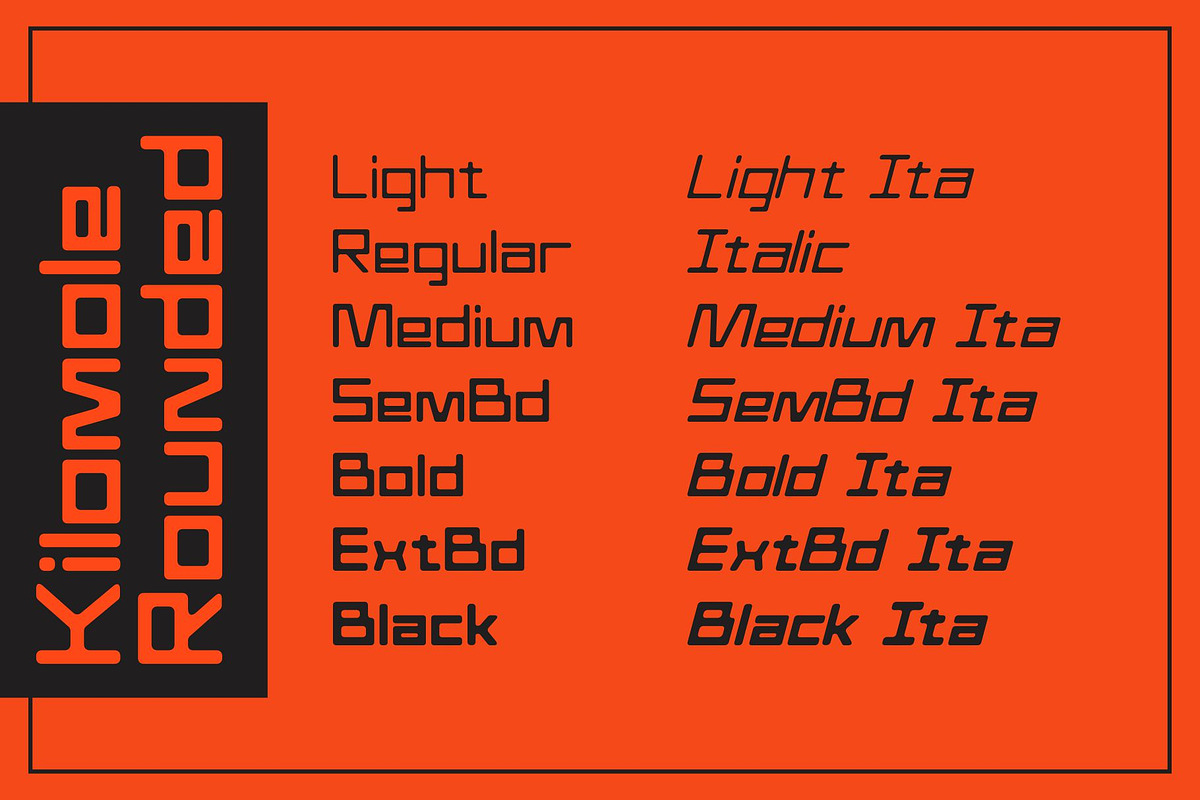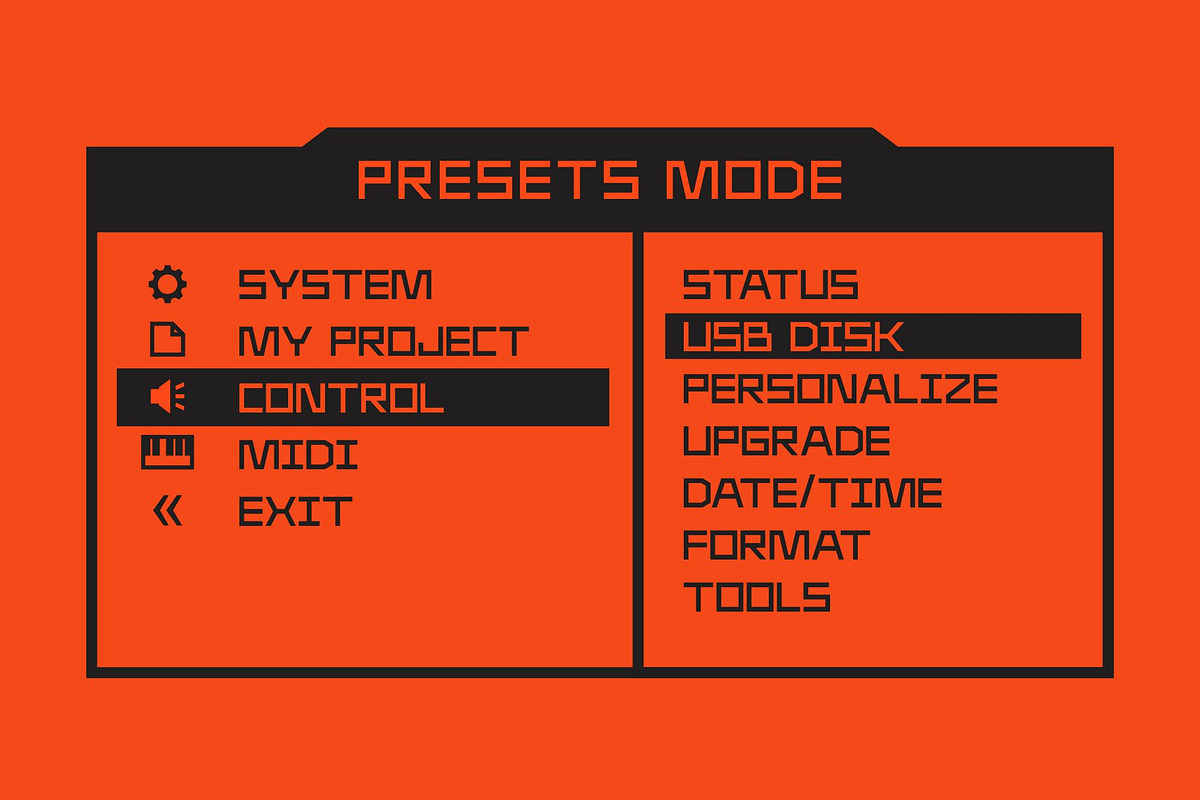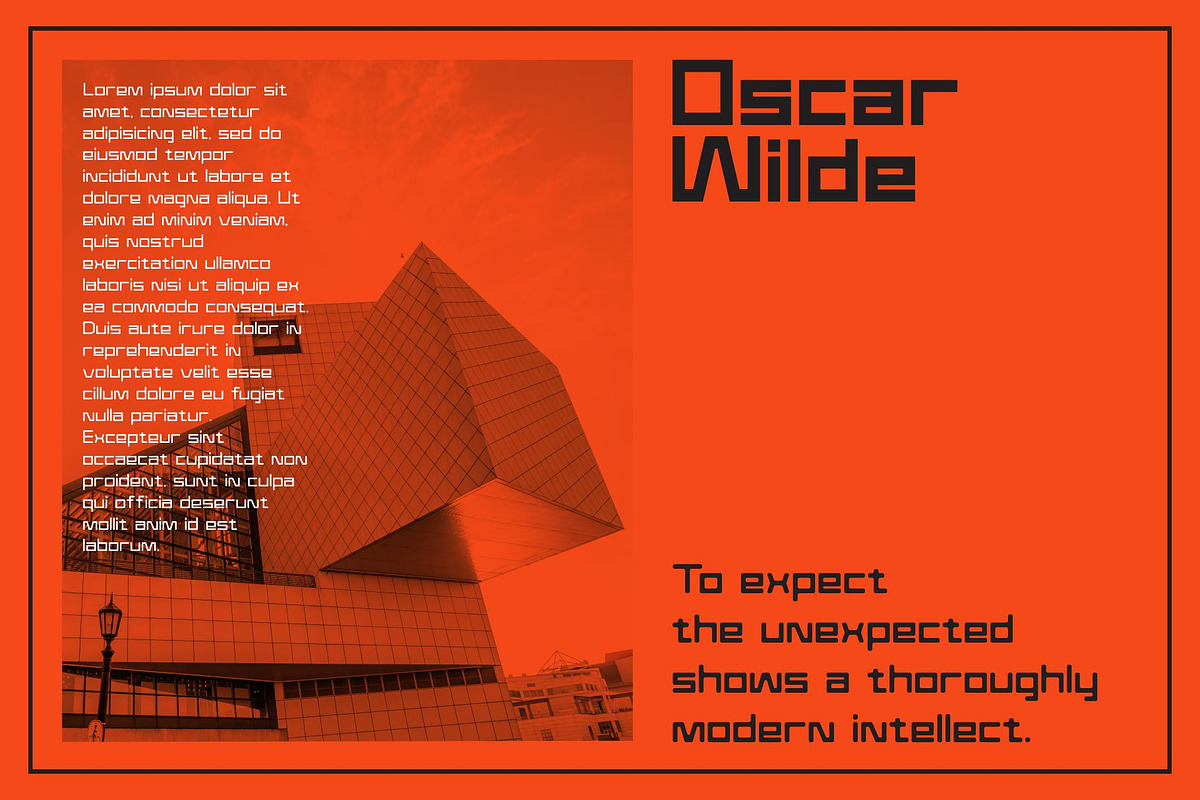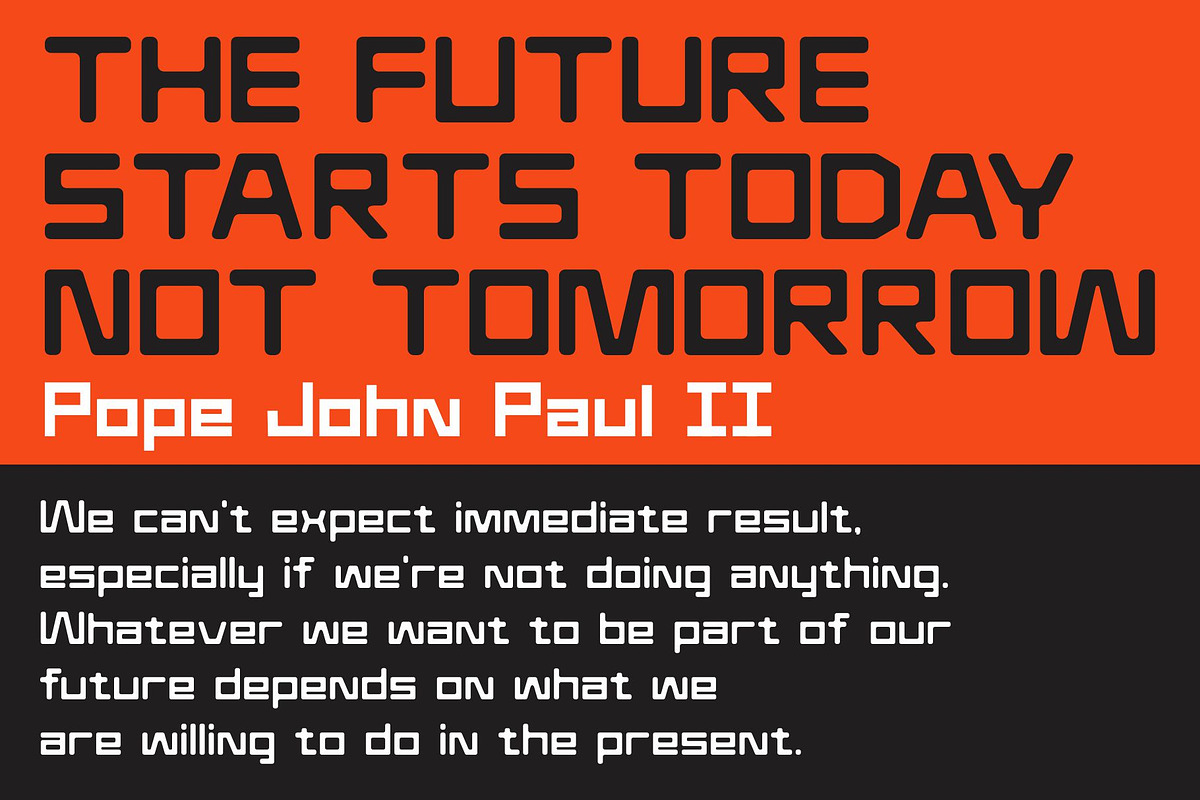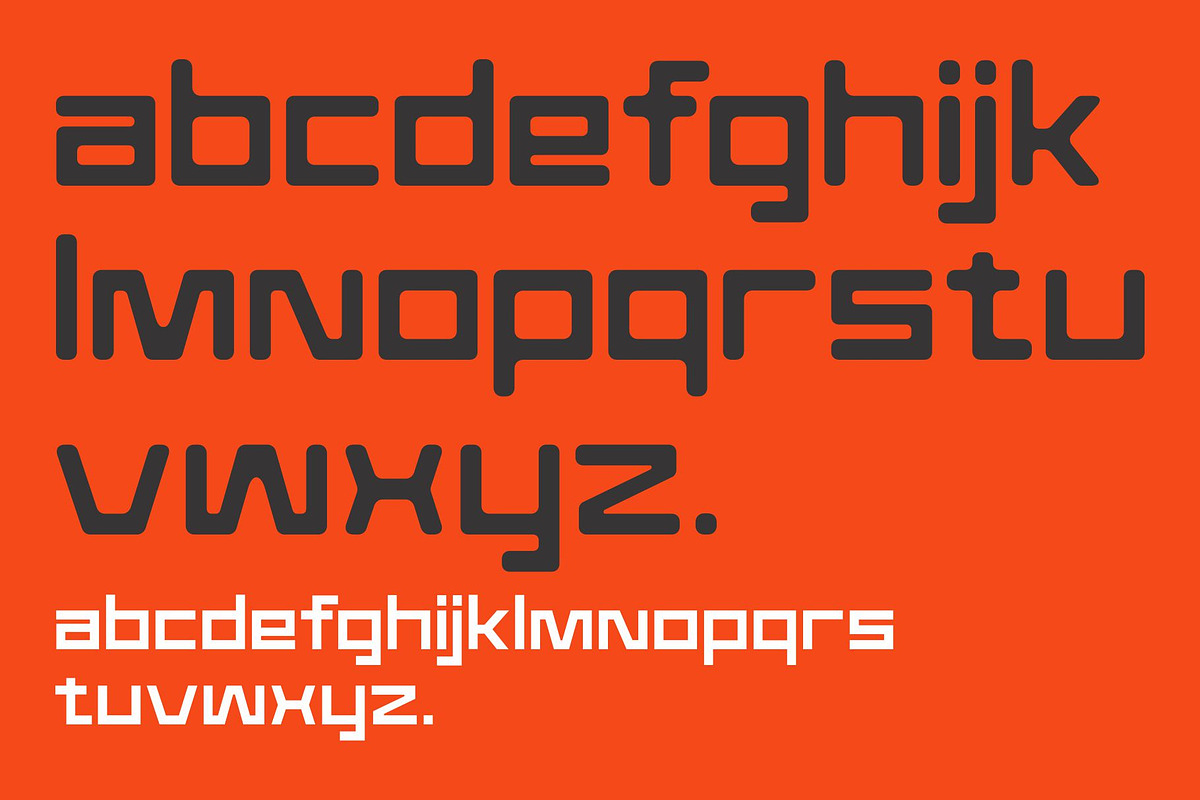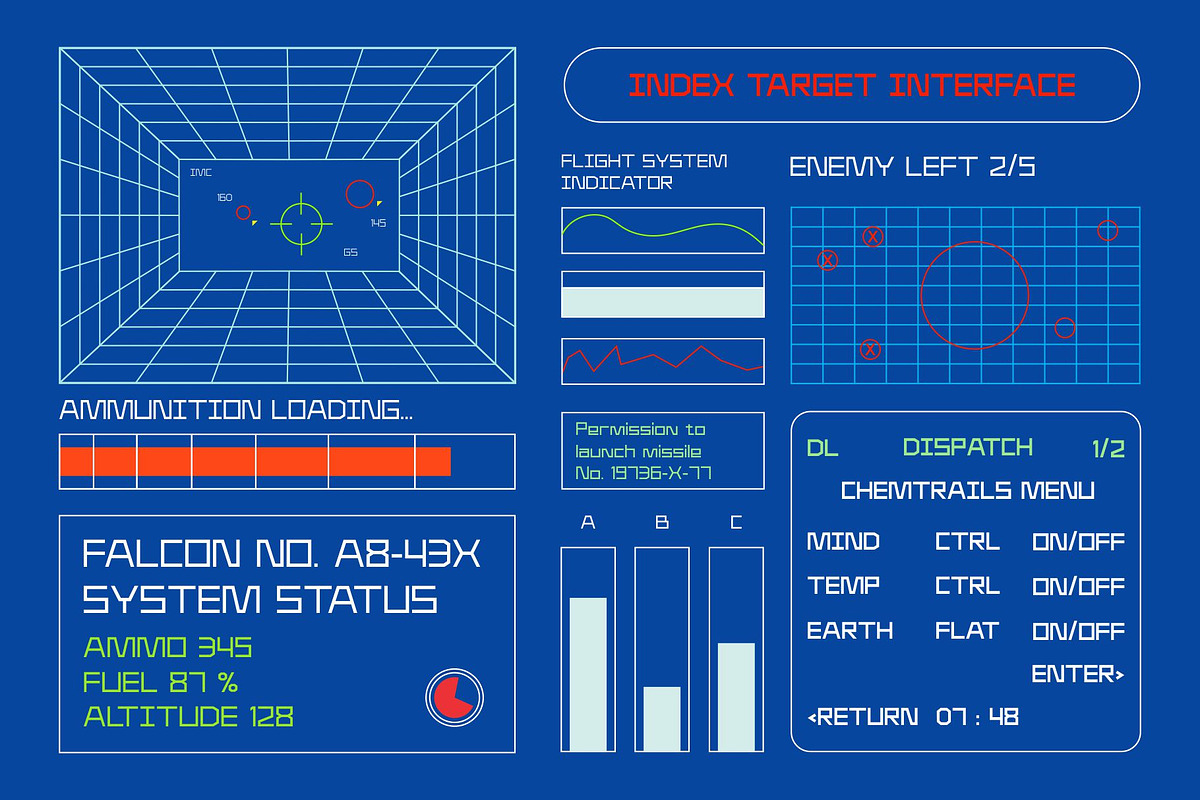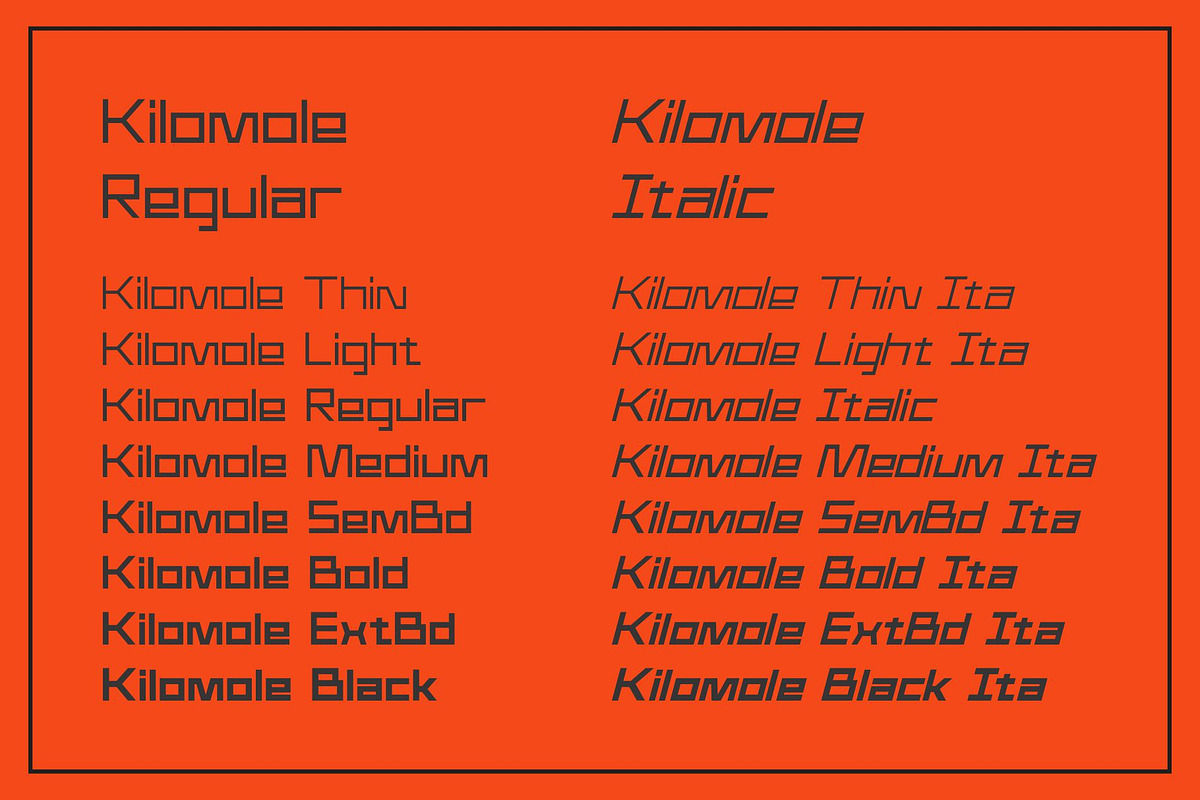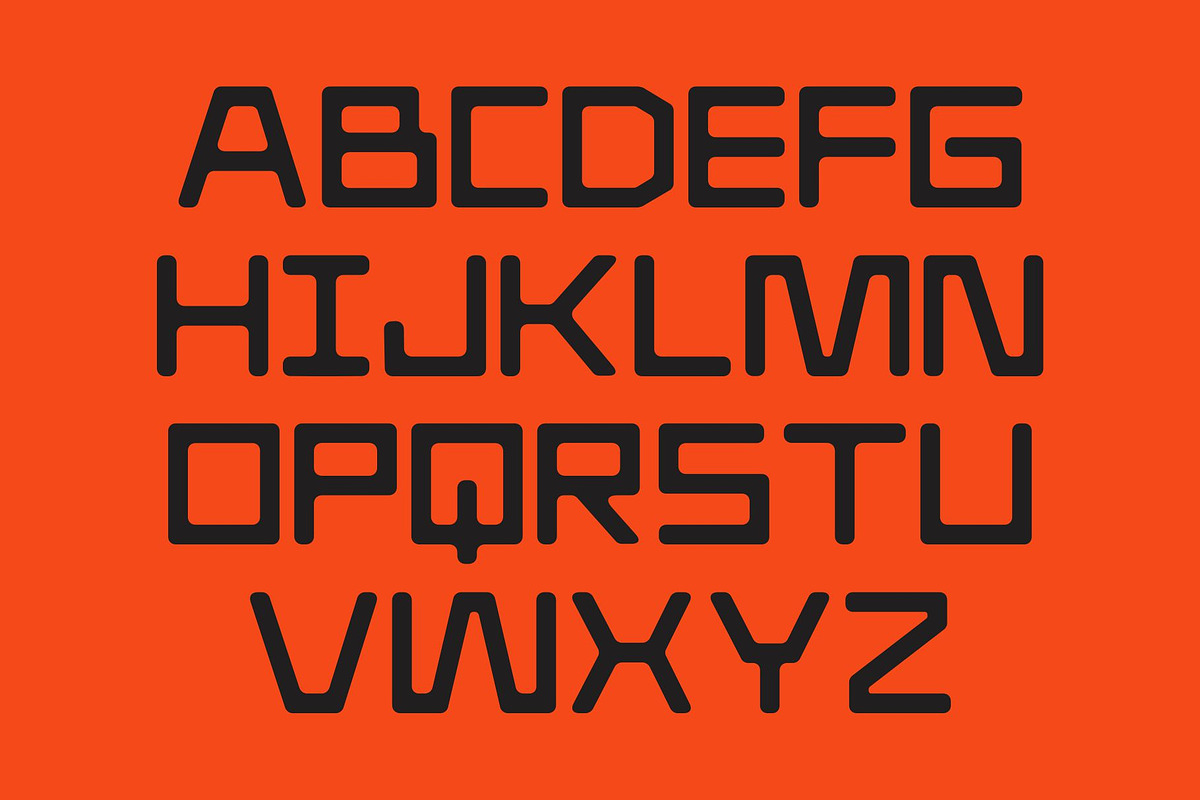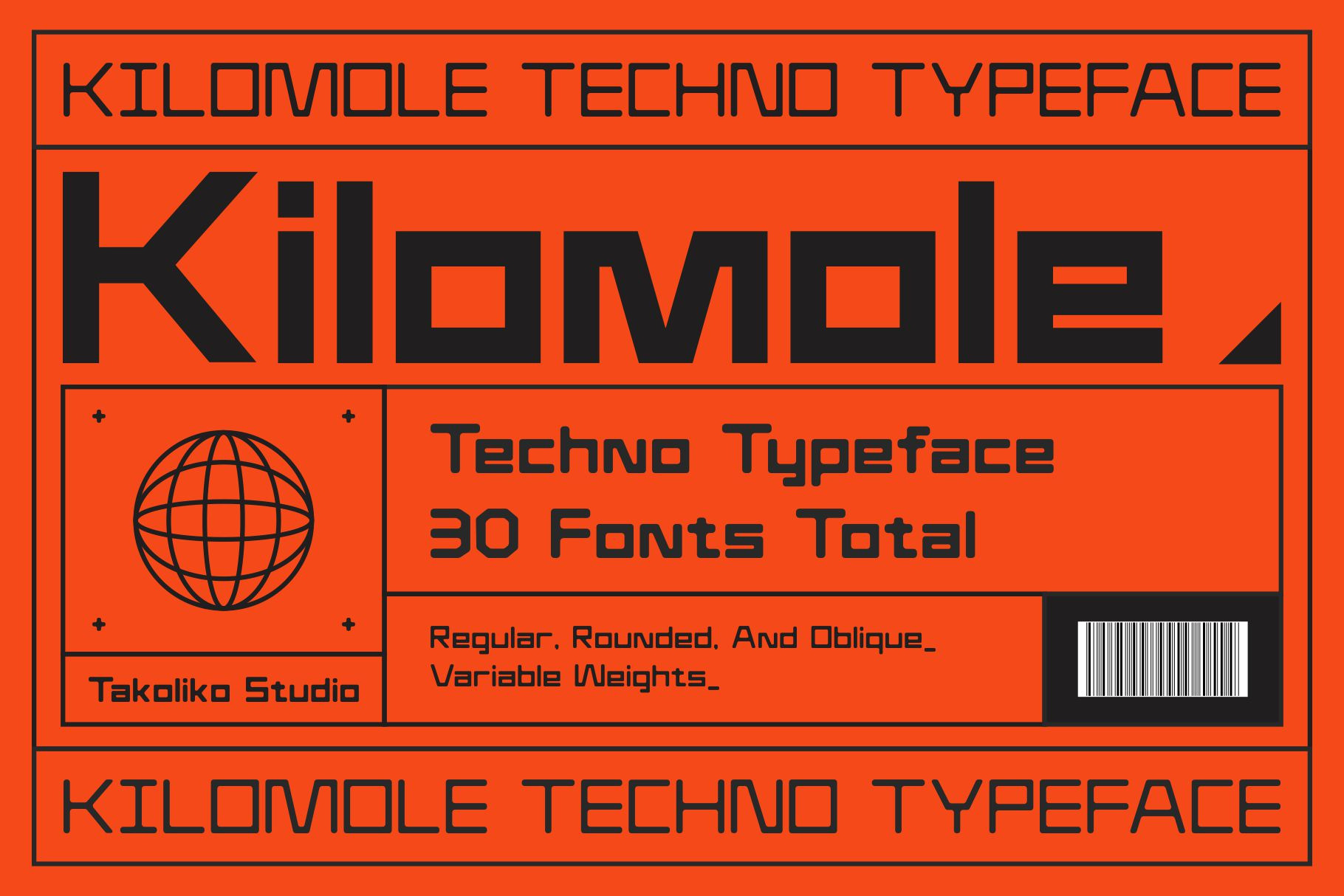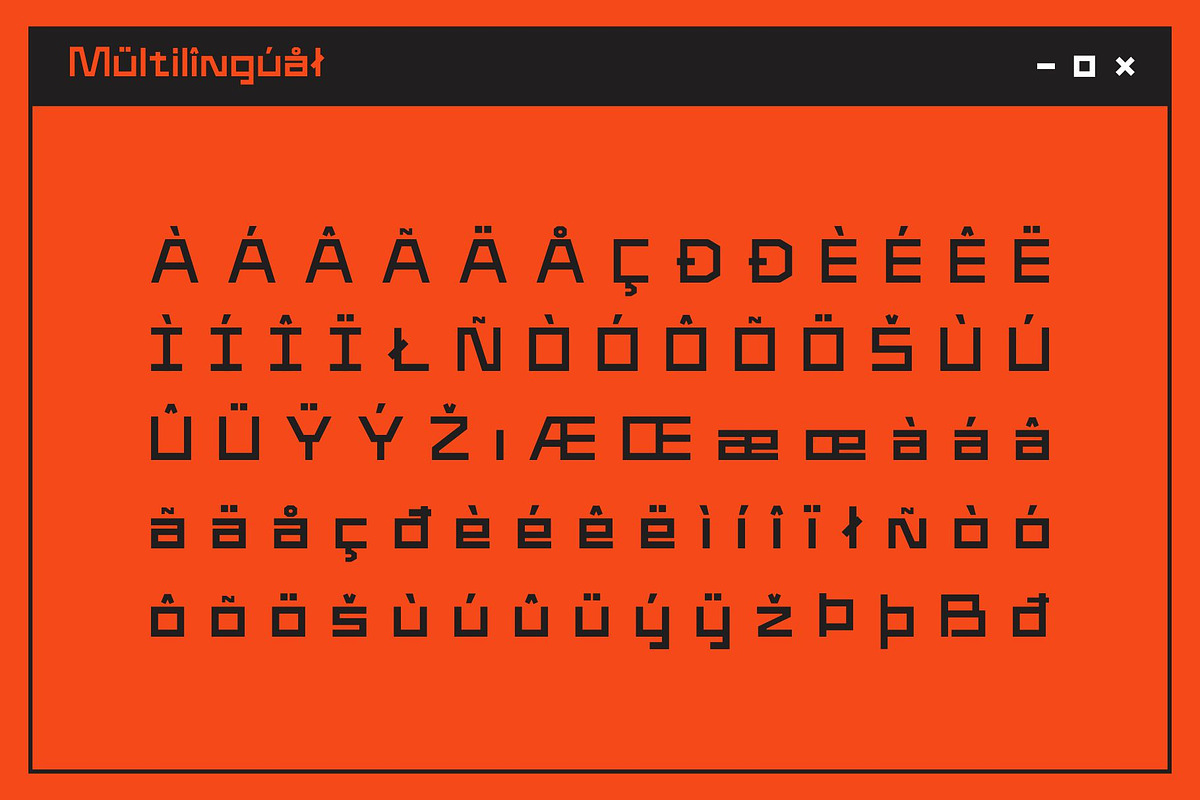
Kilomole-Techno Typeface
Meet Kilomole, the contemporary techno typeface ready to transform your designs. It features not just one, but two distinct styles - regular and rounded, offering versatility for various design concepts. With its cubic aesthetic, Kilomole invokes a sense of resilience synonymous with durable structures, while seamlessly transporting you into a futuristic vibe. This unique font truly champions the gritty edge of urban sophistication, married with the sleek, streamlined look of tomorrow. Enrich your font collection with the cutting-edge appeal of Kilomole typeface.